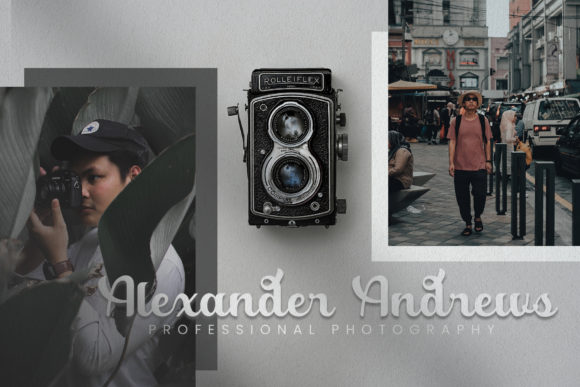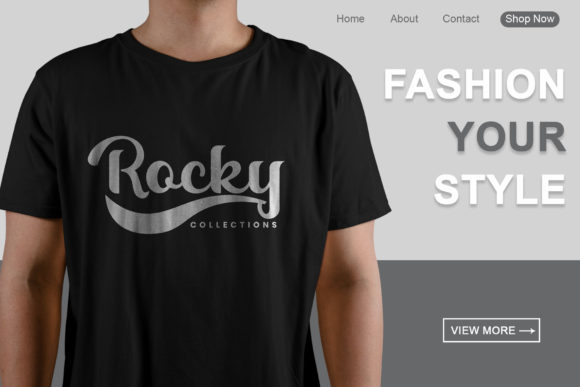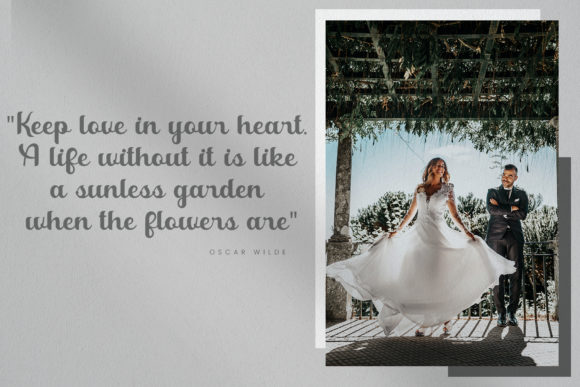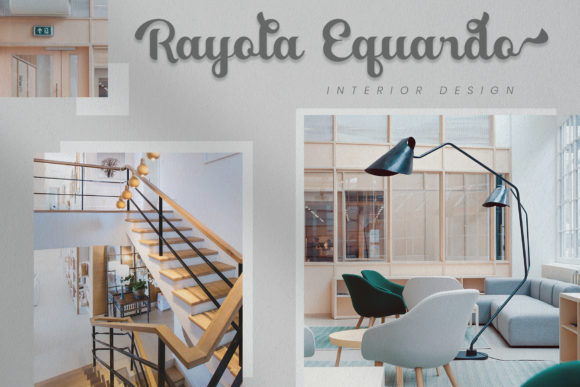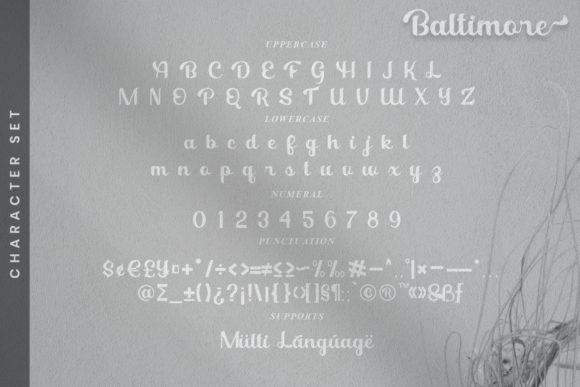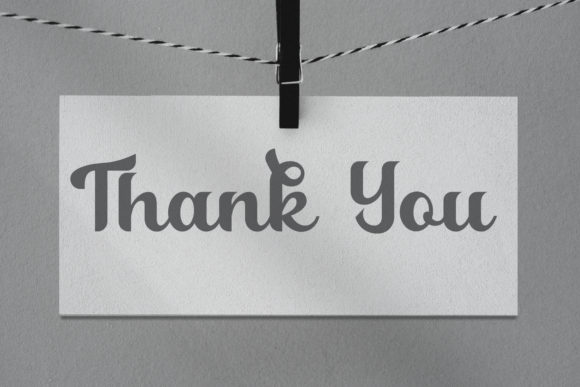
Baltimore Font: Elevate Your Designs with a Touch of Luxury
Are you looking for a font that can add a touch of elegance and sophistication to your design projects? Look no further than the Baltimore Font. This beautiful light handwritten font is designed to make a stunning impact, and its unique feel is sure to set your designs apart from the rest.
What Makes Baltimore Font So Special?
Baltimore Font is a luxury font that is perfect for designers and crafters who want to add a touch of glamour to their work. Its light and airy feel makes it ideal for use in a variety of design projects, from branding and packaging to wedding invitations and social media graphics.
One of the standout features of Baltimore Font is its unique feel. This font is not just a simple, run-of-the-mill script font – it’s a carefully crafted typeface that is designed to evoke a sense of luxury and sophistication. Its elegant lines and flowing curves make it perfect for use in high-end designs, and its versatility means that it can be used in a wide range of applications.
The Benefits of Using Baltimore Font
So why should you choose Baltimore Font for your next design project? Here are just a few of the benefits of using this amazing font:
- Luxury look and feel: Baltimore Font is designed to add a touch of luxury to your designs. Its elegant lines and flowing curves make it perfect for use in high-end designs.
- Unique and distinctive: This font is not just another generic script font – it’s a carefully crafted typeface that is designed to stand out from the crowd.
- PUA encoded for ease of use: Baltimore Font is PUA encoded, which means that you can access all of the amazing glyphs and ligatures with ease.
- Versatile: This font can be used in a wide range of design applications, from branding and packaging to wedding invitations and social media graphics.
How to Use Baltimore Font in Your Designs
Using Baltimore Font in your designs is easy. Here are a few tips to get you started:
- Pair it with bold fonts: Baltimore Font looks great when paired with bold, sans-serif fonts. Try using it in combination with a font like Arial Black or Impact to create a striking contrast.
- Use it for headings and titles: This font is perfect for use in headings and titles, where its elegant lines and flowing curves can really make an impact.
- Experiment with different colors: Baltimore Font looks great in a wide range of colors, from rich jewel tones to soft pastels. Experiment with different colors to find the one that works best for your design.
Who Can Benefit from Using Baltimore Font?
Baltimore Font is perfect for a wide range of designers and crafters, including:
- Graphic designers: If you’re a graphic designer looking for a font that can add a touch of luxury to your designs, Baltimore Font is a great choice.
- Wedding designers: This font is perfect for use in wedding invitations, stationery, and other wedding-related designs.
- Crafters: If you’re a crafter who loves to create handmade cards, gift tags, and other paper crafts, Baltimore Font is a great addition to your font collection.
In conclusion, Baltimore Font is a beautiful light handwritten font that is perfect for designers and crafters who want to add a touch of luxury to their work. Its unique feel and stunning impact make it ideal for use in a wide range of design projects, from branding and packaging to wedding invitations and social media graphics. With its PUA encoding and ease of use, Baltimore Font is a great choice for anyone looking to elevate their designs and take them to the next level.